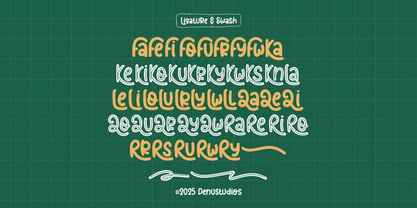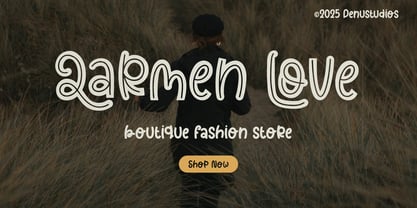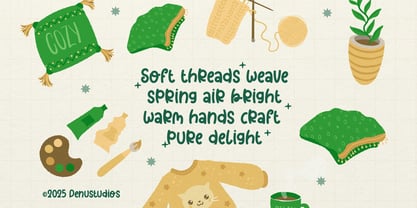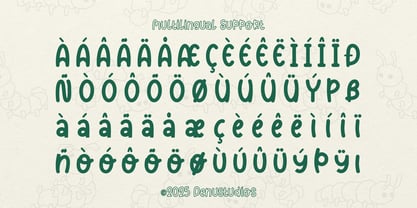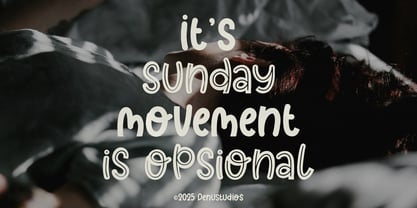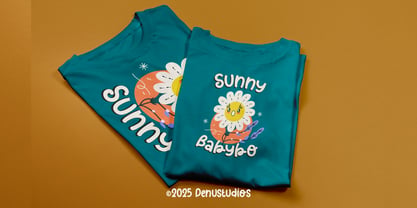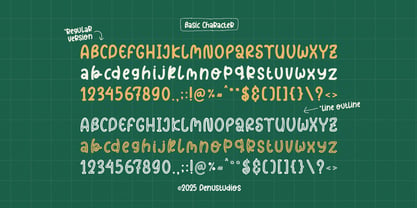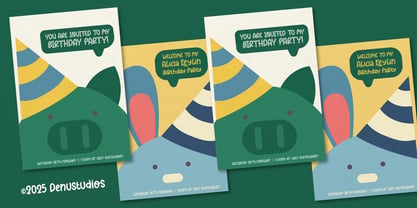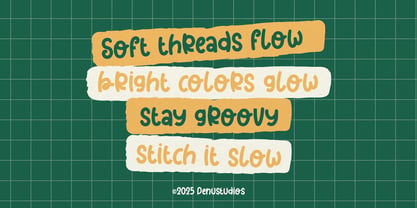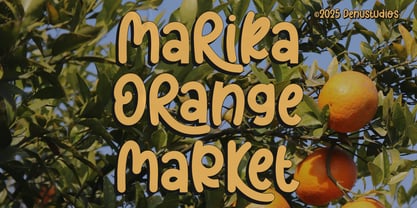
Komachi Wiggler
The Komachi Wiggler Font Family was designed by Dede Nugraha and published by Denustudio. Komachi Wiggler contains 1 styles. More about this family
Komachi Wiggler | Cute Playful Font, from Denustudios, suitable for any projects such as: logos, branding projects, homeware designs, product packaging, mugs, quotes, posters, shopping bags, t-shirts, book covers, name card, invitation cards, greeting cards, label, photography, watermark, special events, and all your other lovely projects that need Cute Playful Font a taste.
• Regular and Italic
• Standard glyphs
• Alternate and Ligature
• Fonts include multilingual support